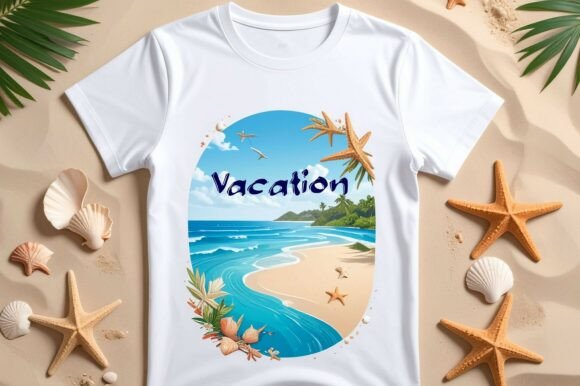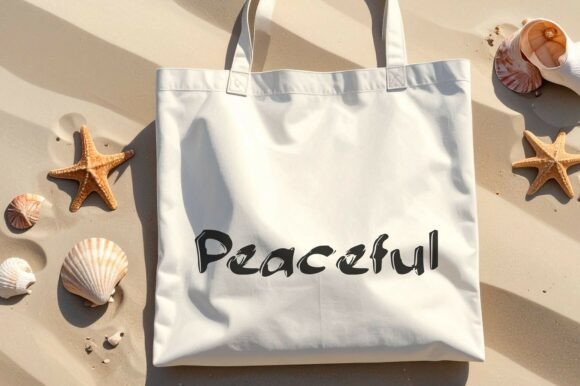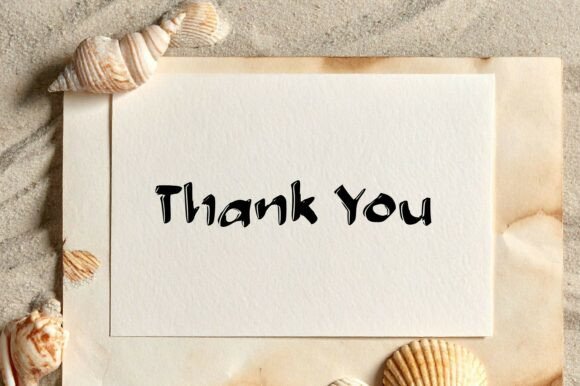
Discover the Whimsical Charm of Cangkang Font
Have you ever felt the rush of creative inspiration, where ideas flow effortlessly and the world around you seems to fade into the background? It’s a moment when your imagination knows no bounds, and the possibilities seem endless. For designers, this moment is the key to unlocking truly unique and captivating designs.
Enter Cangkang Font, a dynamically brushed font that embodies the essence of this creative moment. With its warm, handcrafted charisma, Cangkang Font invites you to immerse yourself in its whimsical imperfections and organic rhythm. This font is perfect for designers looking to add a relaxed, artistic touch to their work, whether it’s a personalized branding initiative, a sentimental greeting card, or an engaging social media graphic.
Cangkang Font is a valuable addition to any designer’s toolkit, offering an exquisite fusion of lucid, readable shapes and artistically balanced aesthetics. By embracing its inviting, subtly artistic demeanor, you can elevate your designs and make them truly unforgettable.
Cangkang Font Key Features
- Unique Characteristics: The Cangkang Font features a unique, hand-drawn design with intricate details and textures, giving it a distinctive and eye-catching appearance.
Cangkang Font Review
As a designer, I was excited to try out the Cangkang font. The first thing that caught my attention was its unique and quirky design. ✨ The font’s irregular shapes and organic feel make it stand out from the usual sans-serif fonts. I love how it adds a touch of personality to any design.
- ✨ Unique and quirky design that adds personality to any design
- ✨ Highly legible, even at small font sizes
- ✨ Works well for headings and titles
However, there are also some limitations:
- ⚠️ Limited character set, which may not be suitable for languages that require a wide range of characters
- ⚠️ Not suitable for body text, as it can be quite fatiguing to read
- ⚠️ May not work well in digital displays with low resolution
Overall, I think the Cangkang font is a great choice for designers who want to add a unique touch to their designs. However, it’s not a versatile font that can be used for a wide range of applications. Use it sparingly and strategically, and you’ll be able to create some amazing designs.
Cangkang Font is suitable for various design projects, including:
- Logo designs
- Branding materials
- Infographics
- Editorials